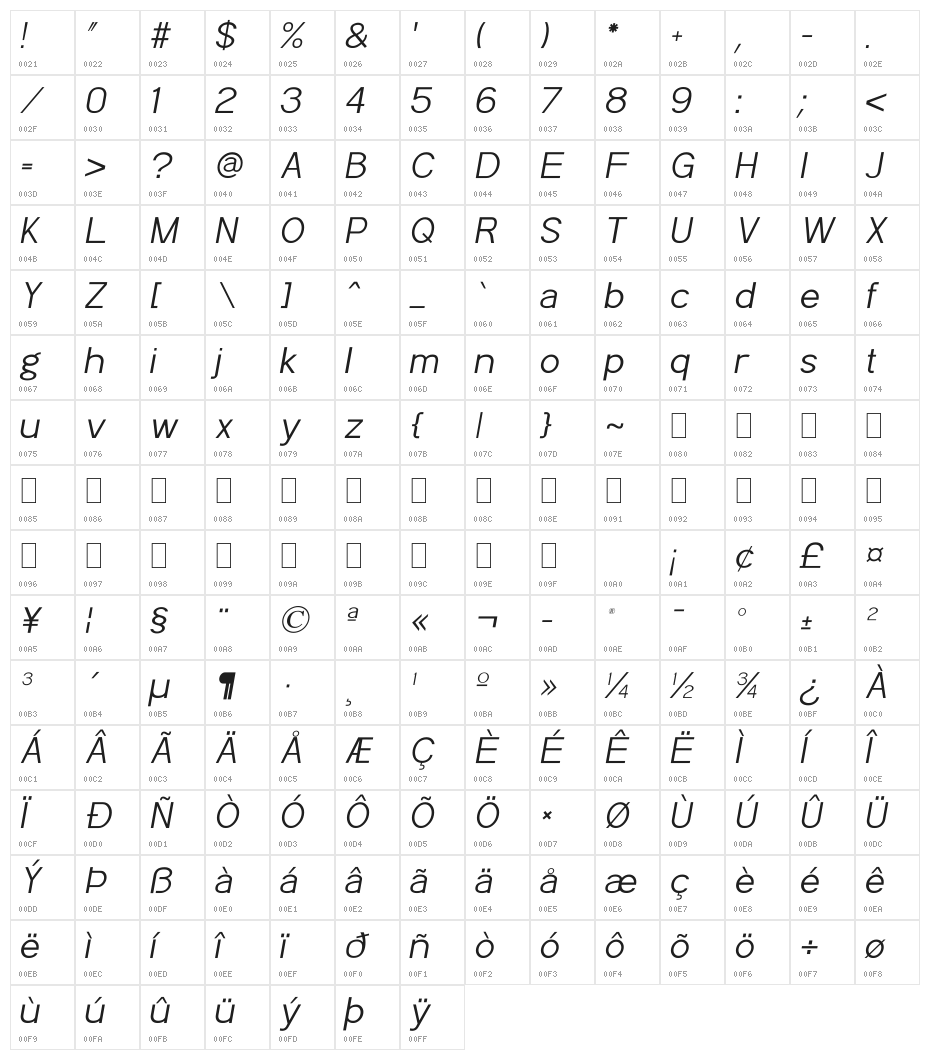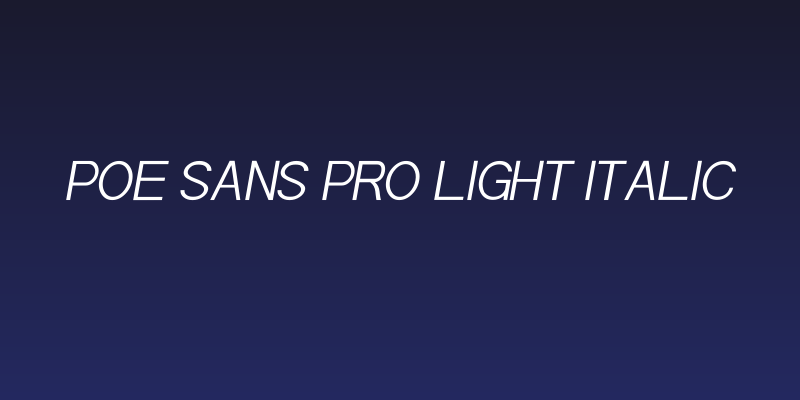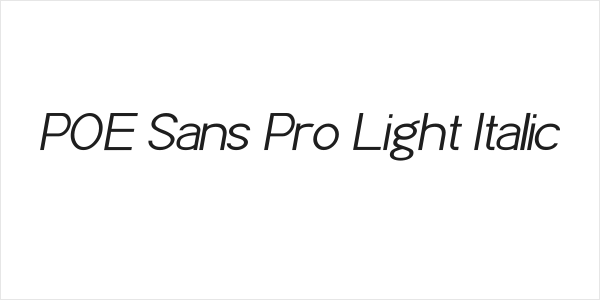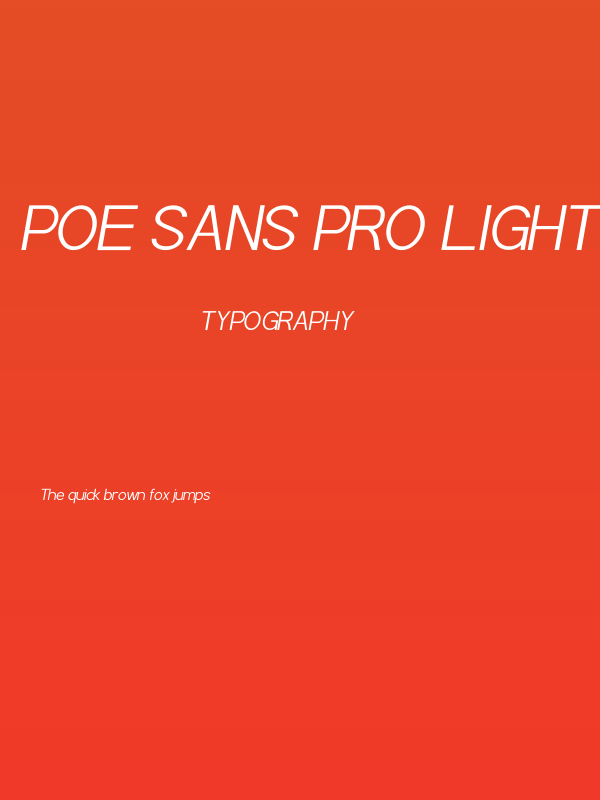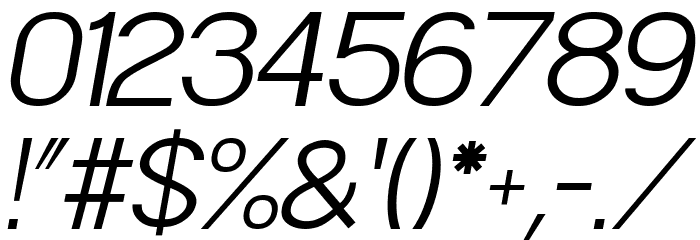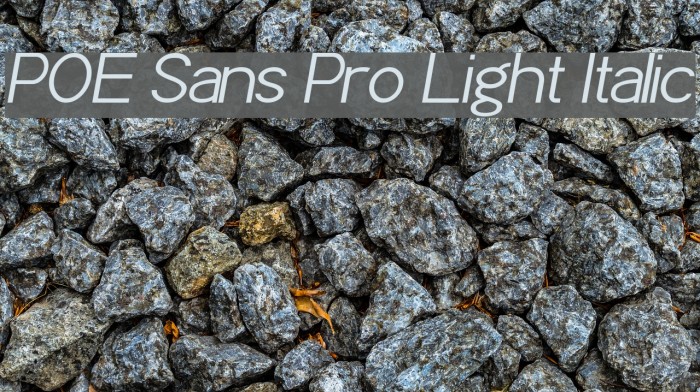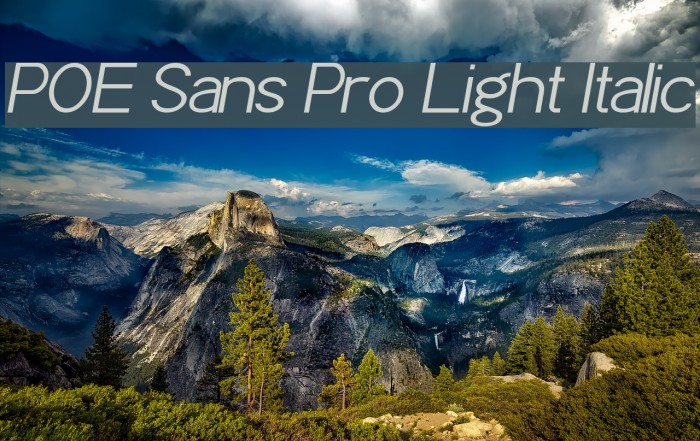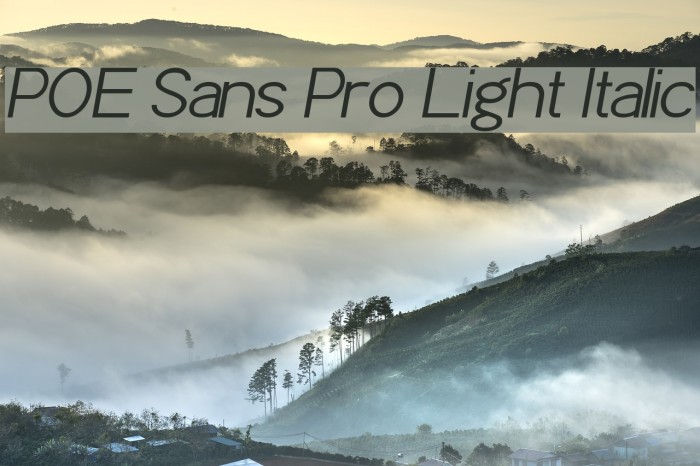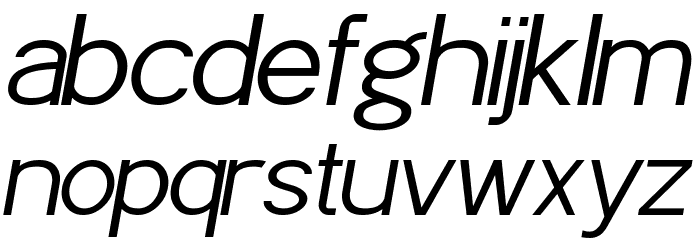
POE Sans Pro Light Italic Font
This font features a sleek, modern design with a light weight and italic style. The characters are elegantly slanted, giving a sense of motion and fluidity. The sans-serif nature of the font ensures clean lines and a minimalist aesthetic, making it versatile for various design applications. The uppercase and lowercase letters maintain a consistent style, with smooth curves and balanced proportions. The numerals are clear and legible, complementing the overall design. Special characters are included, offering a comprehensive set for diverse uses.